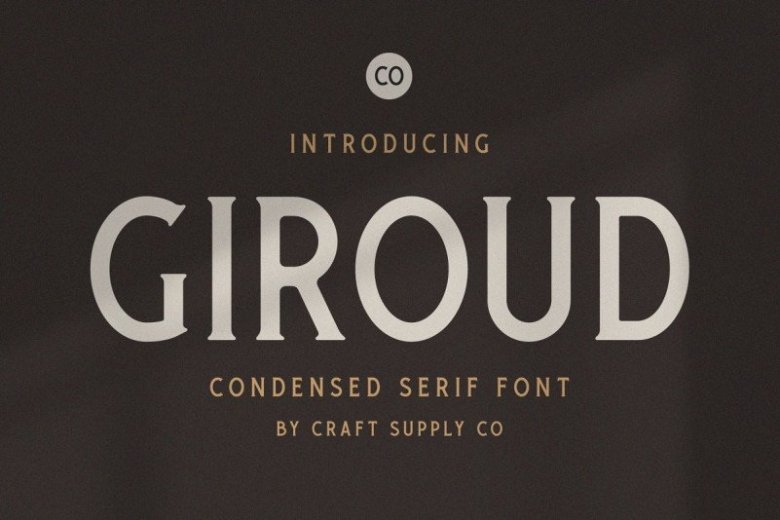
Giroud – Condensed Serif Font
Thank you for looking Giroud Font. It’s a modern elegant serif font. This is a vintage display typeface with a contemporary feel. This font will help to realize all your ideas and will not leave indifferent even the most sophisticated.
Try it, change alternates and ligatures and you will see how many options you can get by creating in a classic style or a more elegant style. It’s an Condensed serif font with solid font files.
it is based on the compact solid font, by combining a variety of styles. Suitable for Logo, greeting cards, quotes, posters, branding, name card, stationary, design title, blog header, art quote, typography
Giroud – Condensed Serif Font also suitable for art, modern envelope lettering or book design, craft design, any DIY project, book title, wedding font, pop vintage design, or any purpose to make your art/design project look pretty and trendy.